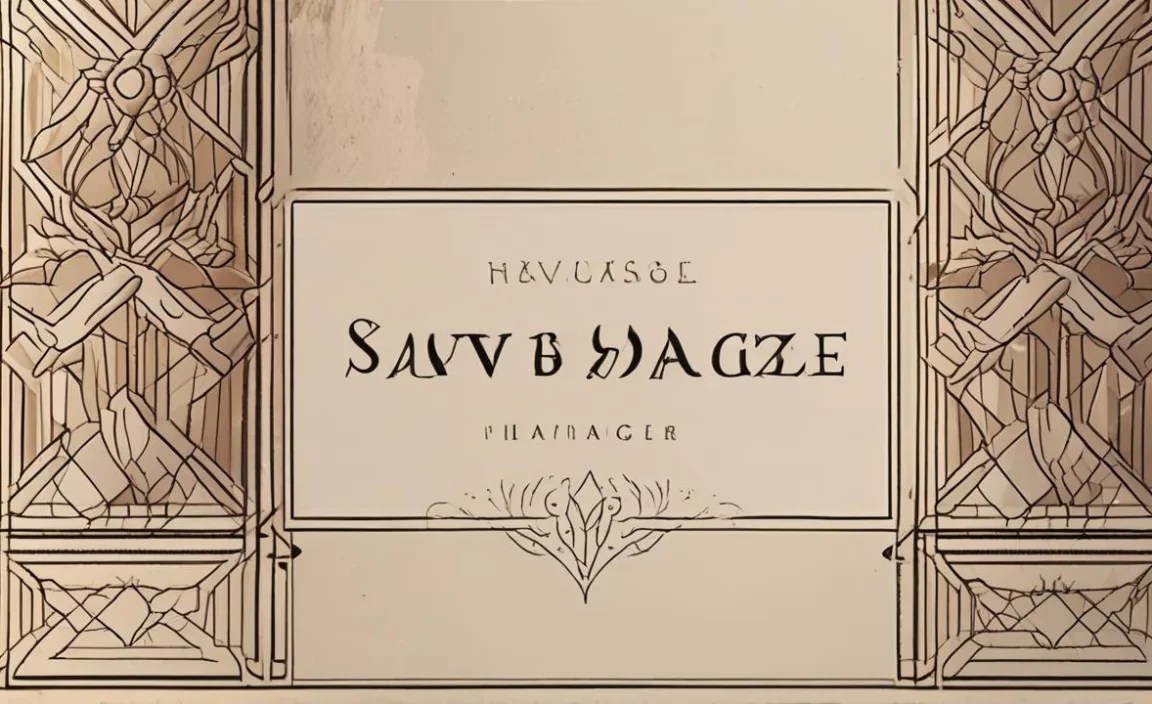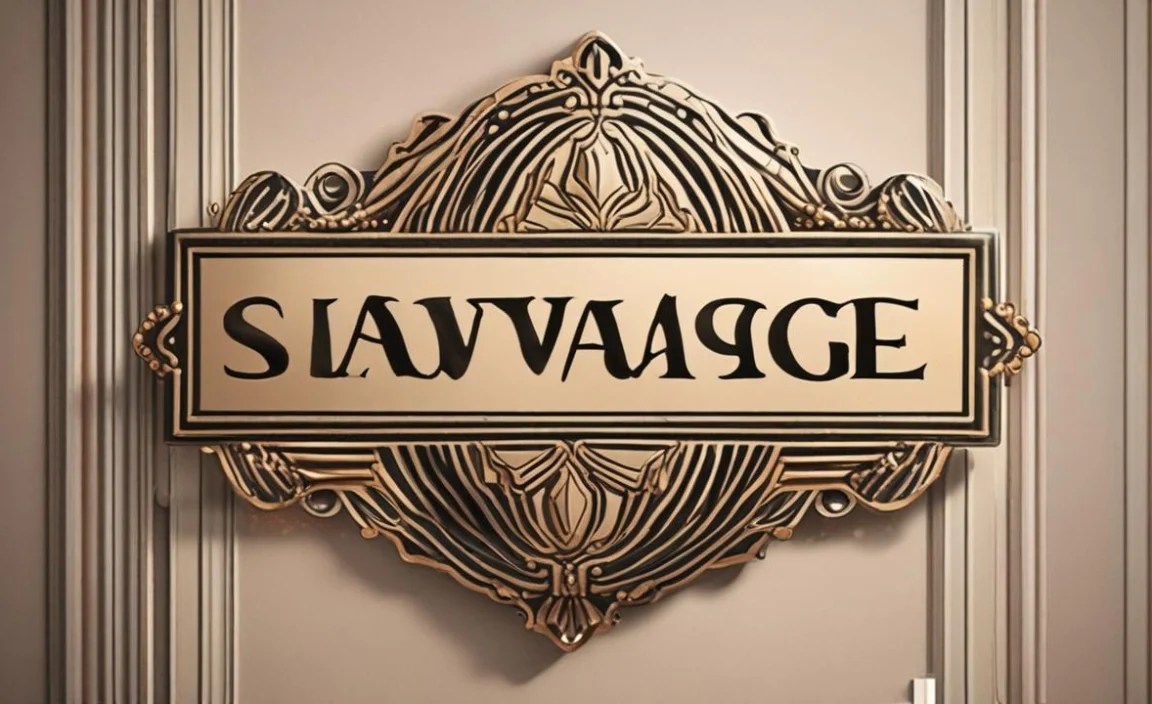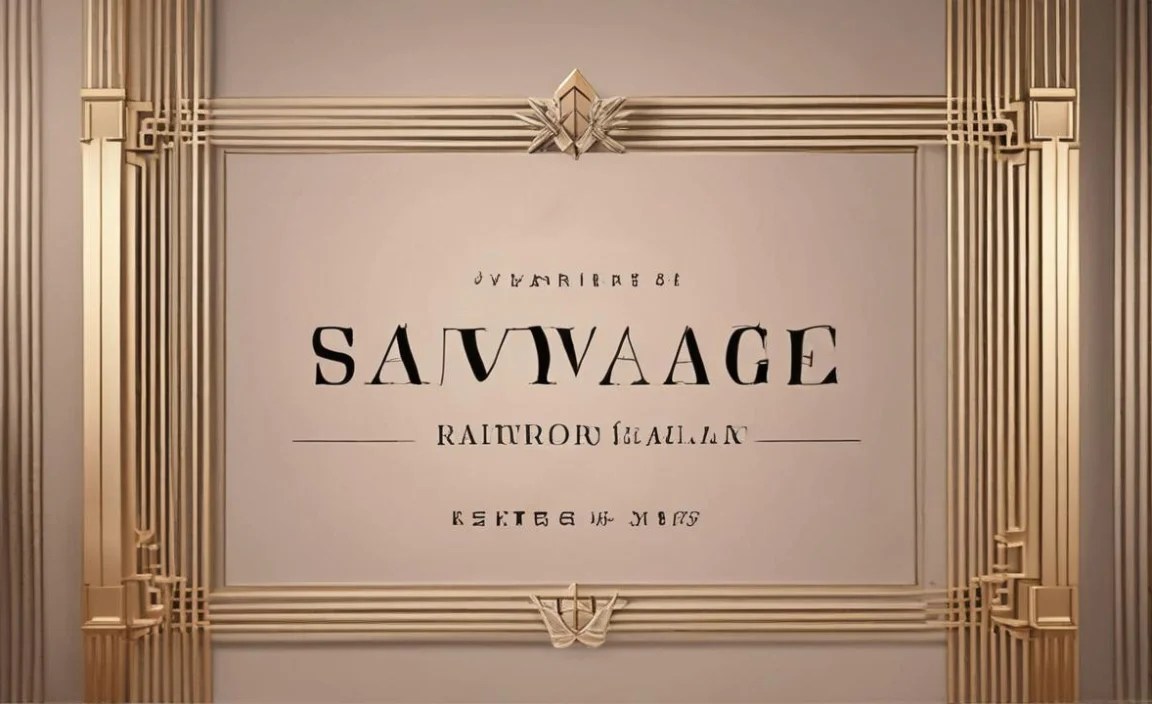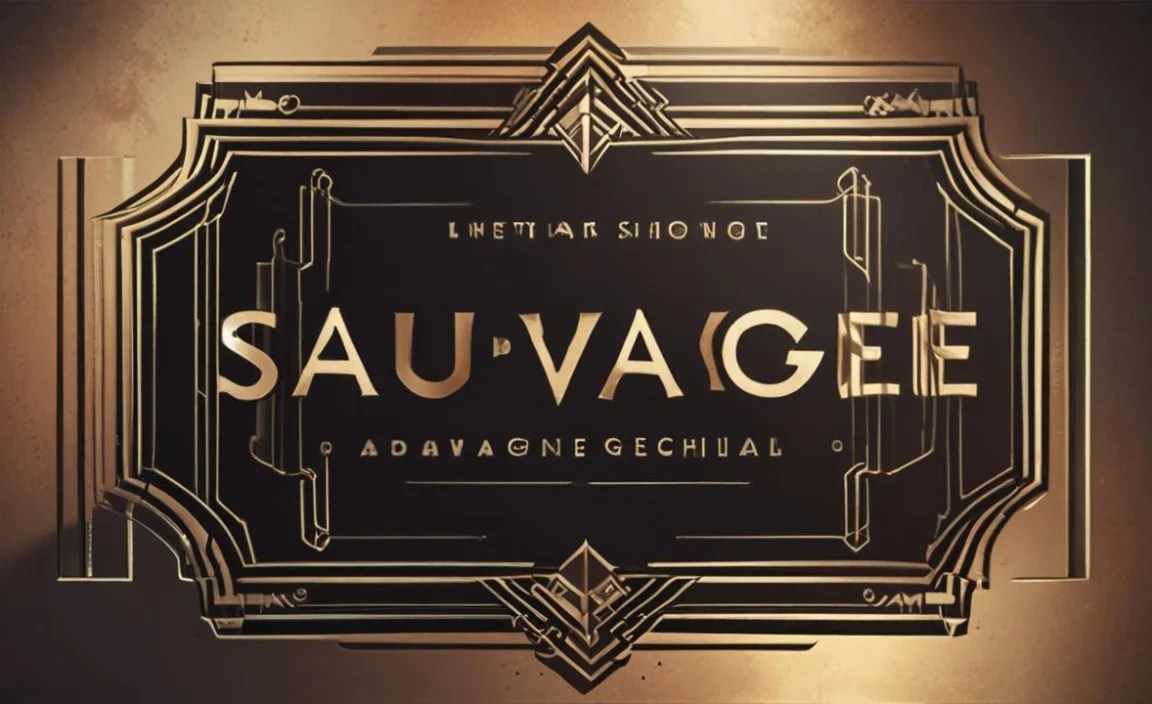
Sauvage Font, designed by Back Up Graphic and published on October 24th, brings an Art Deco-inspired elegance to the world of serif fonts.
Known for its beautiful alternate characters, creative ligatures, and multilingual support, Sauvage is perfect for designers seeking a timeless yet modern typeface for various projects, including logos, magazine headings, and branding.
Sauvage Font Information
| Name | Sauvage Font |
| Style | Art Deco, Elegant Serif |
| Designer | Back Up Graphic |
| Type | Serif Font |
Where Sauvage Font Is In Use
Sauvage Font, with its Art Deco flair and versatility, is perfect for the following uses:
- Logos and branding for luxury and fashion businesses
- Magazine and editorial headings
- Wedding invitations and high-end stationery
- Elegant packaging design for premium products
- Graphic designs with a retro, French Art Nouveau appeal
- Architectural designs inspired by Modernism
For a balanced and stylish look, try pairing Sauvage with these fonts:
- Compendium Script: Great for headings and luxurious accents
- Visby CF Geometric Sans: Complements the Art Deco style with a modern touch
- Abramo Modern Font Duo: Works beautifully for titles and subtitle combinations
- Mason Font: Adds a bold contrast to Sauvage’s elegance
Sauvage Font is a sophisticated, luxurious choice for designers looking to add a touch of Art Deco elegance to their projects. With versatile file formats, customizable logos, and a wide language range, Sauvage provides a professional edge in branding, logo design, and editorial work. Whether for wedding invitations or magazine headings, Sauvage brings a perfect touch of elegance and style.
1.What Makes Sauvage Font Unique?
Sauvage Font combines Art Deco elements with modern design, featuring creative ligatures, elegant alternates, and multilingual support.
3.Can Sauvage Font Be Used In Wedding Invitations?
Absolutely! Its elegant style and ligature options make it ideal for wedding stationery.
4.Which Designers Would Benefit From Using Sauvage Font?
Designers in luxury branding, fashion, editorial, and packaging can greatly benefit from its timeless elegance.
5.Does Sauvage Font Support Multiple Languages?
Yes, it supports a variety of languages, including English, French, German, Spanish, and more.